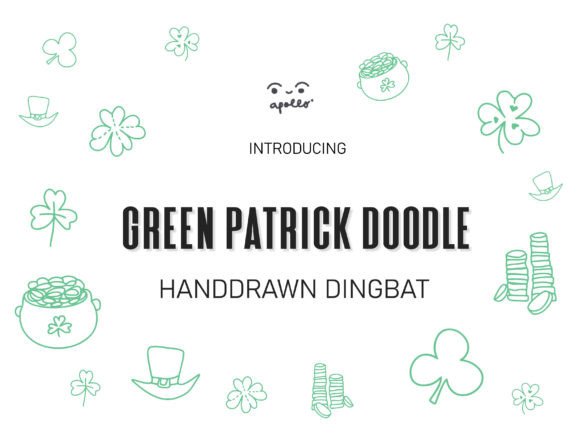
Step into a world of whimsy and charm with Green Patrick Doodle, the captivating dingbats font that will add a touch of delight to your creative projects. Inspired by the joyous spirit of St. Patrick's Day, this font bursts with playful energy, making it the perfect choice for adding a cheerful touch to your designs.
Green Patrick Doodle is not just another font; it's an invitation to unleash your creativity and embrace the magic of hand-drawn charm. Its whimsical elements, reminiscent of a joyous celebration, are sure to infuse your projects with a sense of fun and lightheartedness.
Picture this: you're designing an invitation for a birthday party, and you want to create something truly special. With Green Patrick Doodle, you can add a touch of whimsy to the invitation, making it a keepsake that your guests will cherish. The font's playful elements will set the tone for a festive and memorable occasion.
Or perhaps you're working on a wall art project, and you want to add a pop of color and personality to your space. Green Patrick Doodle is the perfect choice, with its eye-catching designs that will instantly transform any wall into a work of art. Its charming elements will add a touch of whimsy to your home décor, creating a space that sparks joy and laughter.
But the possibilities don't end there. Green Patrick Doodle is also an excellent choice for beverage logos, adding a touch of playful sophistication to your brand. Its unique designs will help your logo stand out from the crowd, attracting customers with its irresistible charm.
Green Patrick Doodle is more than just a font; it's an experience. It's a chance to embrace your creativity and let your imagination run wild. Whether you're designing invitations, creating wall art, or crafting logos, this font will add a touch of magic to your projects, leaving a lasting impression on all who see it.